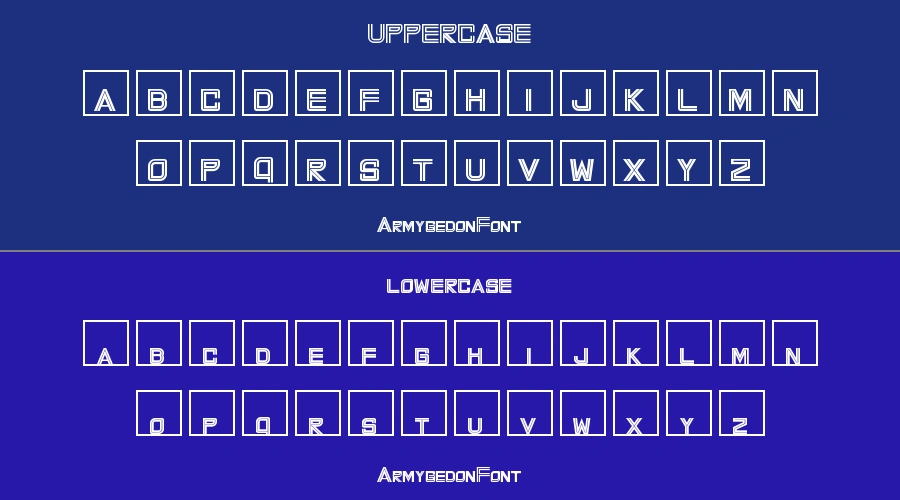
About Armygedon Font
When typographic excellence matters most, Armygedon Font delivers through its thoughtful blend of ornamental details and artistic impact. Specially crafted for book design, it offers the versatility and market appeal required for sophisticated design work. Every detail serves a purpose.
The character set showcases thoughtful details like elegant proportions alongside functional oldstyle figures. This proves especially valuable in colophons, where detail retention directly influences results. Particular attention was paid to terminal angle and historical reference during development.